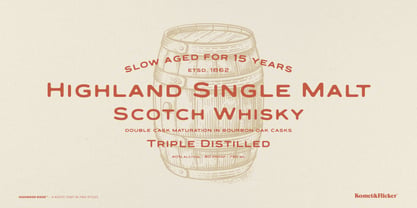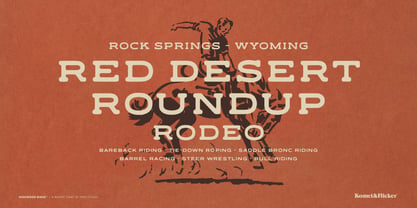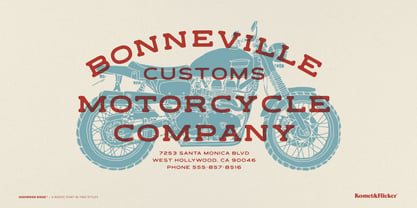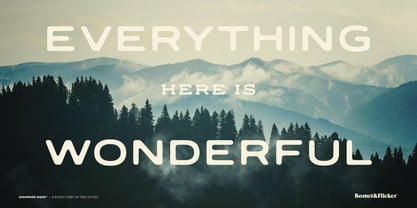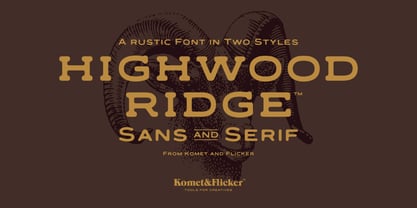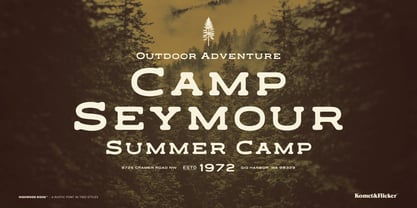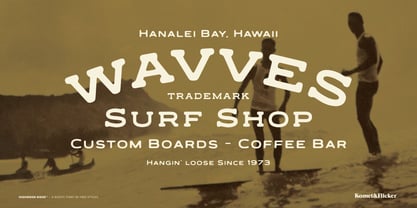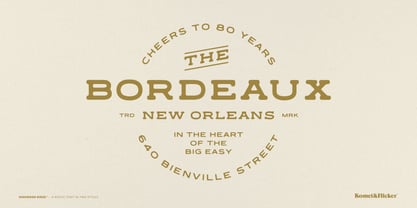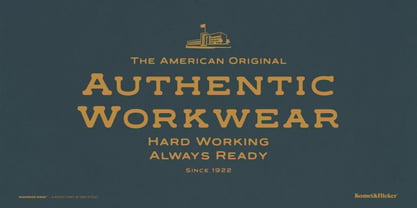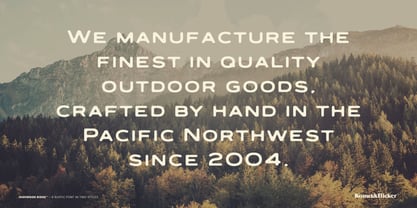
Highwood Ridge
von Komet & Flicker
Die Schriftfamilie Highwood Ridge wurde von David Phillips entworfen und von Komet & Flicker veröffentlicht. Highwood Ridge enthält 2 Stile und Familienpaketoptionen.
Elevate your designs with Highwood Ridge, a versatile two font family that brings a touch of rugged charm and authenticity to any project. This unique caps/small caps font comes in two distinct styles: a serif that exudes a western flair, and a sans serif that communicates a simpler feel.
This font captures the spirit of the great outdoors with its rustic, well-worn feel, making it perfect for outdoor-themed designs, coffee shops, vintage apparel, and beer & spirits labels. Its hand drawn details evoke a sense of nostalgia and adventure, ensuring your brand stands out with a touch of personality.
Highwood Ridge also includes a set of 10 custom connecting words (in two styles) allowing for seamless typography and enhancing the flow of your text. Whether you're crafting a logo, signage, or product labels, this font family offers the perfect blend of character and functionality. Discover the authentic voice of your brand with Highwood Ridge – where the spirit of the wild meets modern design.